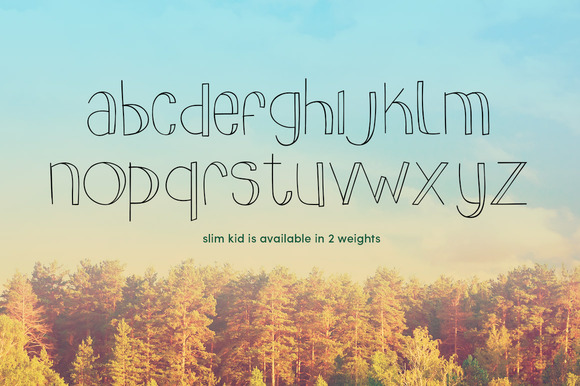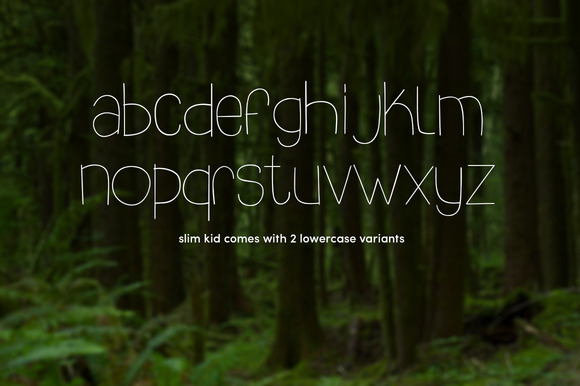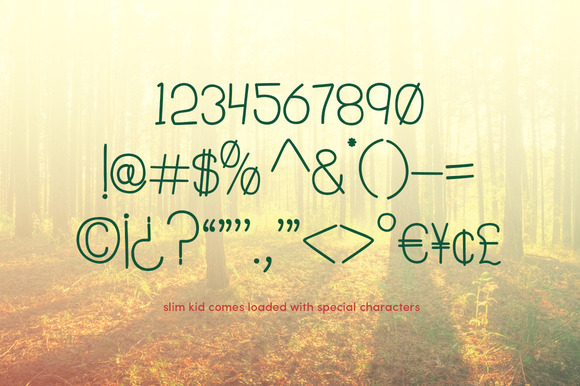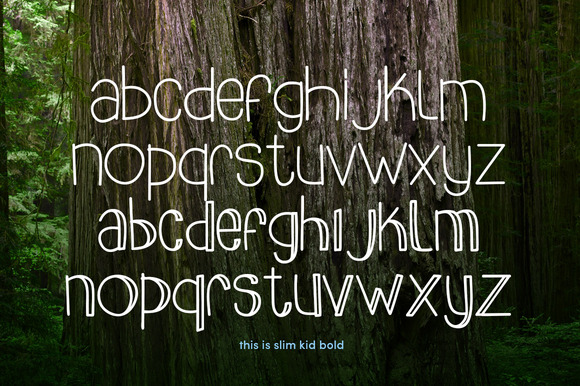
Slim Kid Typeface
Slim Kid is a fun typeface that is available in 2 different weights. Each weight includes 2 variants of lowercase letters and is loaded with lots of special characters. It comes to you ready with OTF, TTF, WOFF, EOT for all of your needs.